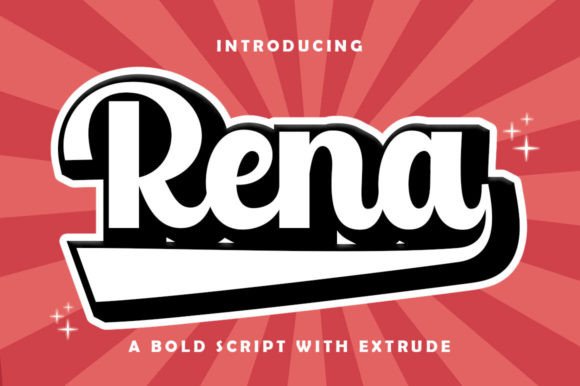
Unleash the elegance of Rena Script - a display font that embodies the essence of retro and hand-lettering artistry. Inspired by the charm of bygone eras, this font is not merely a tool; it's a conduit of creativity, an invitation to embark on a nostalgic journey through the annals of design.
With its diverse range of alternates and swash features, including alternative styles, style sets, ligatures, and swashes, Rena Script grants you the freedom to mix and match, to blend the old with the new, the classic with the contemporary. Unleash your inner artist and create captivating logos, posters, badges, book covers, t-shirt designs, handwritten quotes, product packaging, headers, posters, merchandise, social media posts, and greeting cards that exude a timeless charm.
Dive into a world of boundless possibilities with Rena Script. Its open-type features, including alternative styles, a suite of advanced styles & features, empower you to craft logos, posters, badges, book covers, t-shirt designs, handwritten quotes, product packaging, headers, posters, merchandise, social media & greeting cards that resonate with your unique vision.